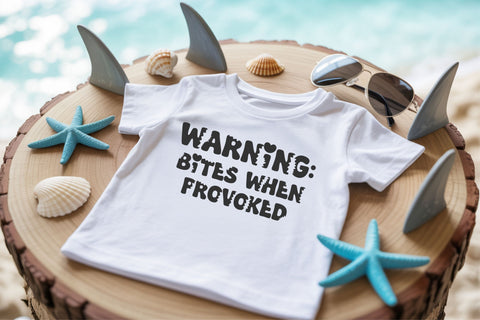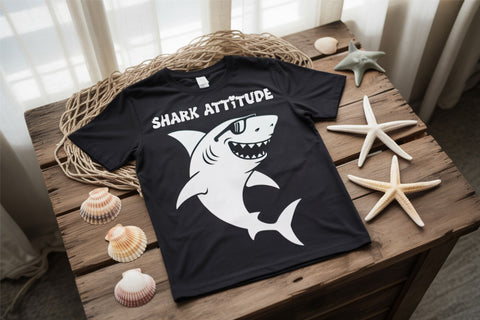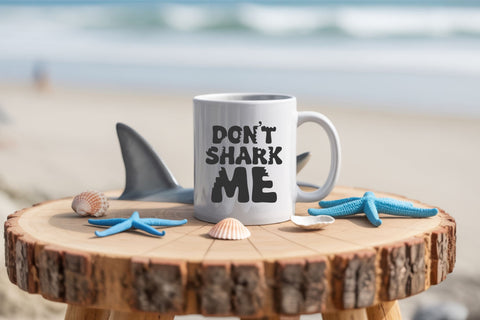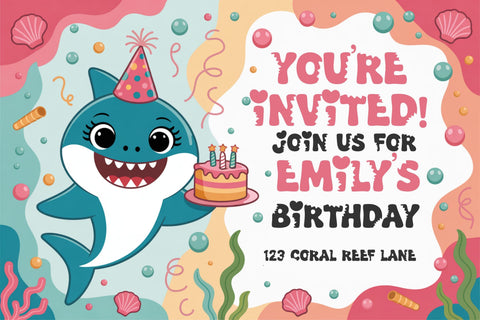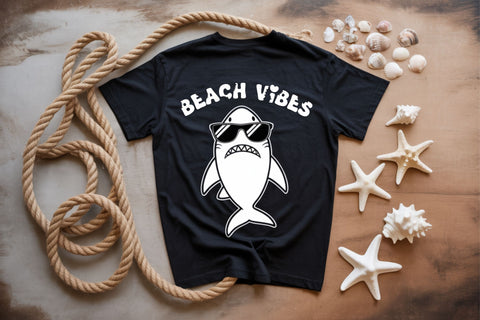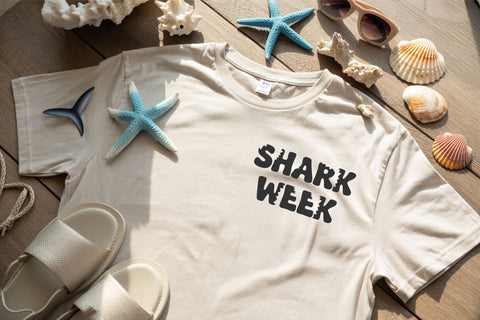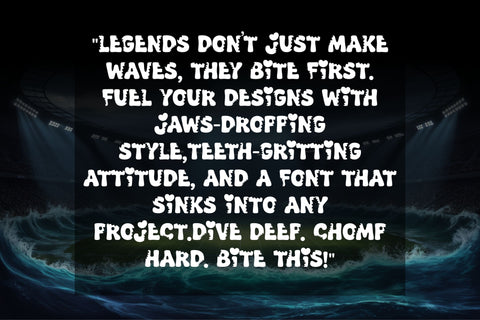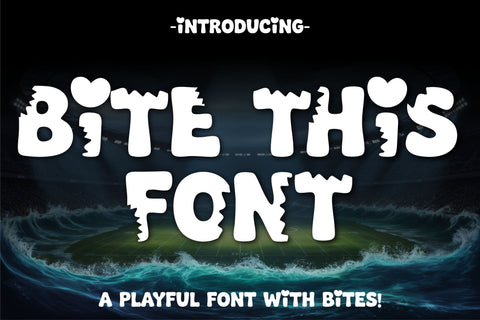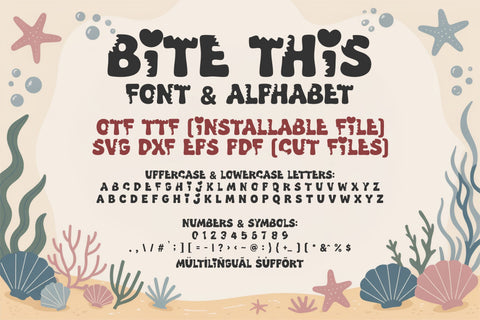
Bite This Shark Font | Funny Bite Font for Kids | Sea Life Ocean SVG Alphabet | T-Shirt Font | Cricut Shark Letters
Make a splash with Shark Bite Font – a bold, playful typeface with bite marks and heart details that bring ocean vibes to every letter! Perfect for kids’ projects, shark-themed birthday shirts, underwater party invitations, beach quotes, mugs, and Cricut crafts. Each letter is chomped and chunky, adding a touch of fun and fierce attitude to your designs. Whether you're creating with Procreate, Silhouette, or Cricut, this font is easy to use. From “Born to Bite” tees to “Swim Fast I Snacc” mugs, Shark Bite is made to stand out in sea-themed creations. Includes uppercase, lowercase, numbers, and symbols, plus multilingual support. Whether you're designing for kids, ocean lovers, or shark fans, this font sinks its teeth into every project with style. Dive into fun, unleash your creativity, and let your next design take a bite out of boring!